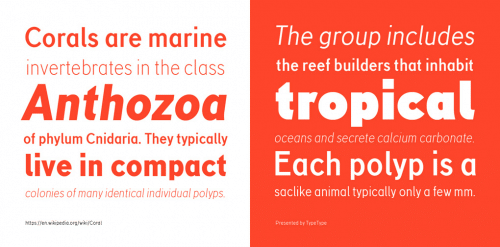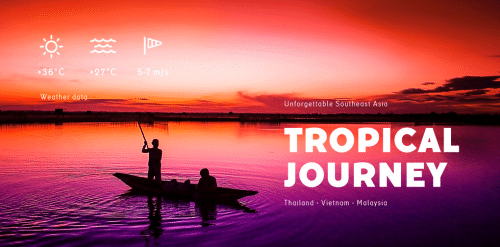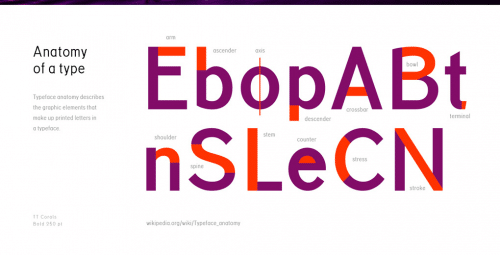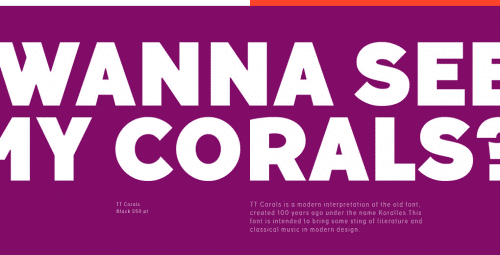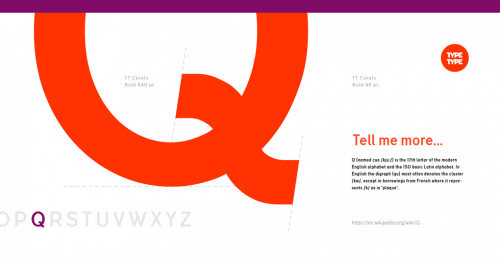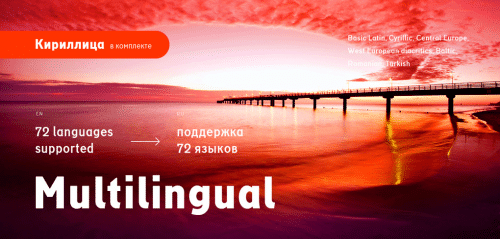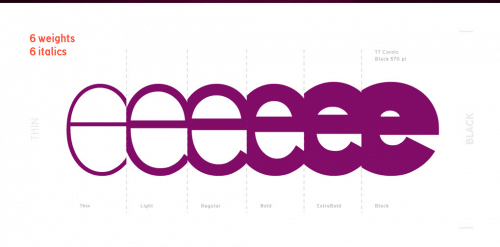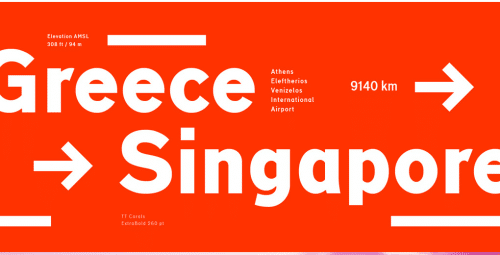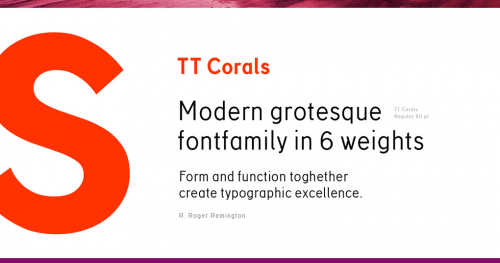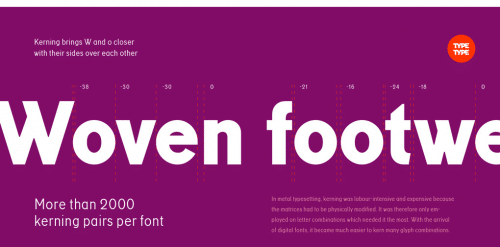
TT Corals is a modern humanist sans-serif which has many typical traits of the beginning of the 20th century. For increased functionality, we created 6 typefaces of various weights: thin, light, regular, bold, extra bold, and black.
Its distinctive smooth lines and separate elements allow TT Corals to be used for a variety of design applications. It fits classical literature or music perfectly, and is appropriate for any creative or innovative content. TT Corals inspires new ideas for your creativity and art with its freshness and novelty .
- Designer: Ivan Gladkikh, Olexa Volochay, TypeType Team